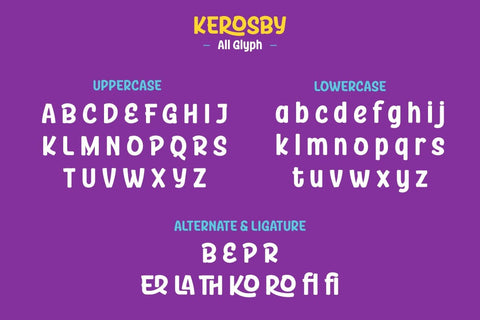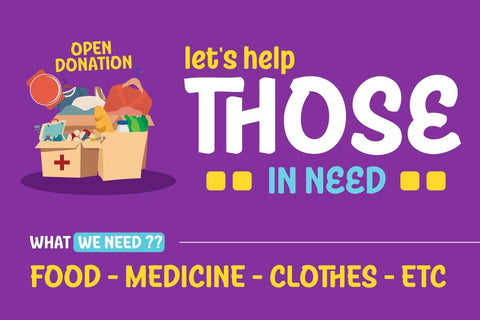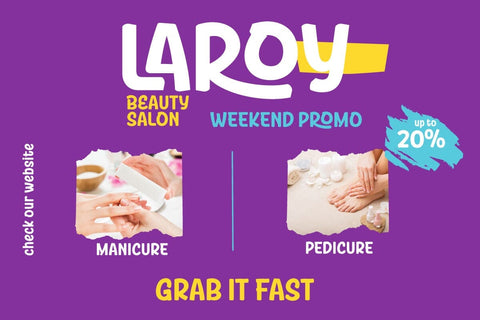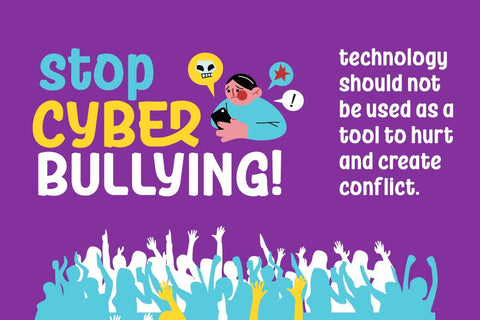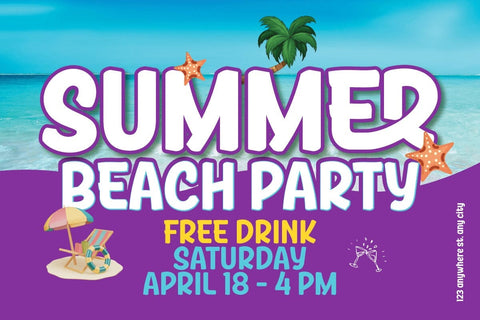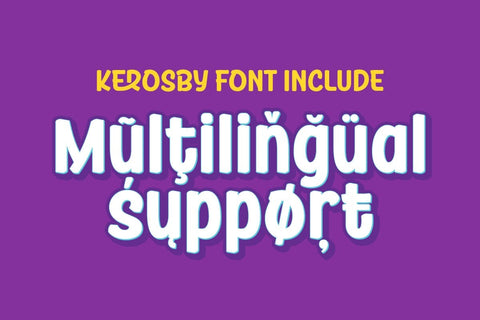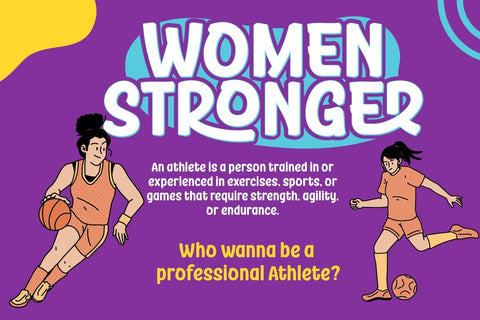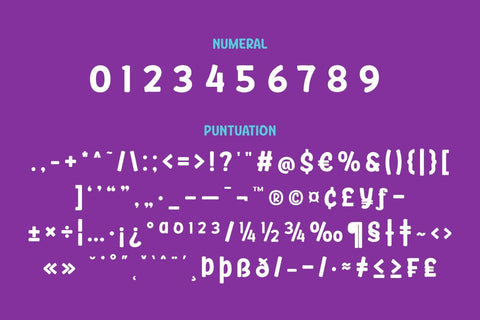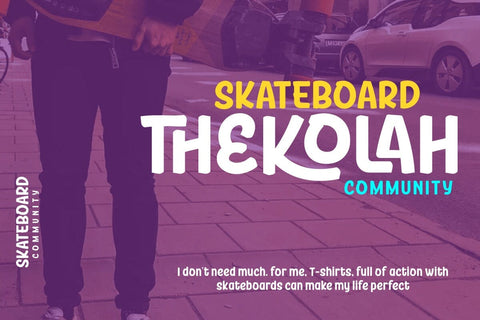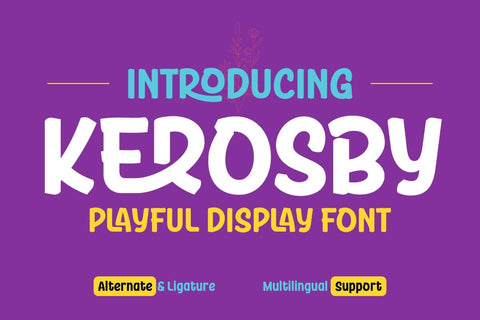
Kerosby - Handwriting Font
Welcome to the world of Kerosby, a relaxing handwritten font that will bring a creative touch to any of your projects. Whether you need a relaxed theme or a relaxed title, Kerosby is the perfect solution.
With Kerosby fonts, you can bring impressive variety to your designs. Whether for promotional materials, greeting cards, or web design, Kerosby will give your message a distinctive feel.
Get Kerosby now and let your creativity flourish. This font also supports multiple languages, so you can connect with a global audience. hinting at other creative designers who have chosen Kerosby to create unique and stunning designs.
- All Iso Latin 1 glyphs
- Fonts include multilingual support